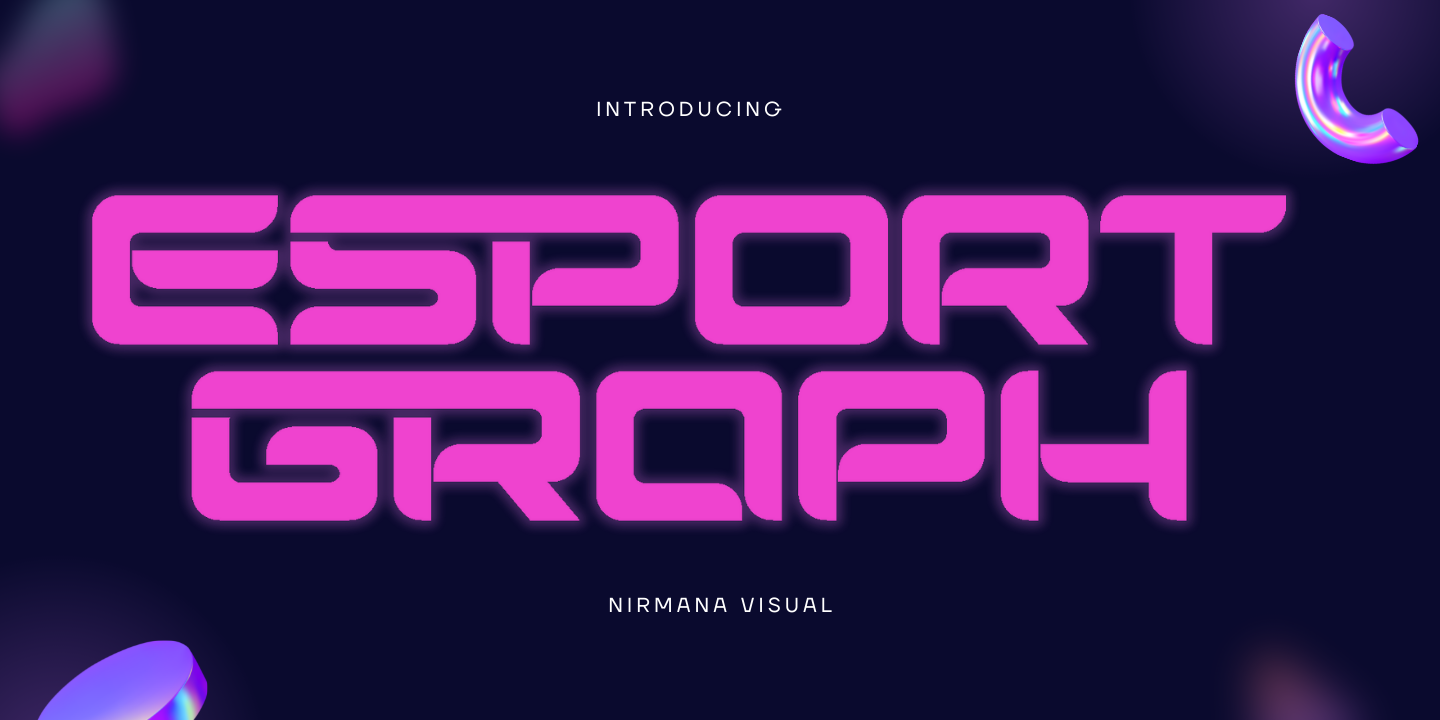
Esport Graph Font is perfect for gaming tournament graphics, esports team branding, competitive gaming interfaces, streaming overlay designs, gaming analytics platforms, and professional esports championship materials.
Esport Graph Font is exciting because it captures the digital precision and competitive intensity of professional gaming, delivering a high-tech typeface that embodies strategic thinking, lightning-fast reflexes, and championship-level performance.
The Esport Graph Font family includes competitive variations: Esport Graph Light, Esport Graph Regular, Esport Graph Bold, digital alternates, and gaming-inspired decorative elements that enhance the font's esports character.
Level up your designs with Esport Graph Font Free Download, a digitally optimized typeface that brings professional gaming excellence and competitive esports energy to your most dynamic gaming design projects. This cutting-edge font excels in creating winning branding for esports organizations, gaming hardware manufacturers, competitive streaming platforms, and professional gaming academies that train the next generation of esports champions. The precisely engineered letterforms feature sharp geometric construction with digital-inspired details that communicate speed, accuracy, and tactical superiority while ensuring crystal-clear readability across all gaming applications. Perfect for tournament broadcast graphics, gaming performance analytics, esports sponsorship materials, and competitive gaming merchandise that needs to convey professional gaming competence and championship ambition, this font connects with gamers who live for victory and strategic mastery. Each character executes with frame-perfect precision, making every gaming communication feel like a strategic play designed to dominate the competition. Esport Graph Font transforms ordinary gaming communications into powerful declarations that inspire competitive excellence and establish authority in the rapidly growing world of professional esports.